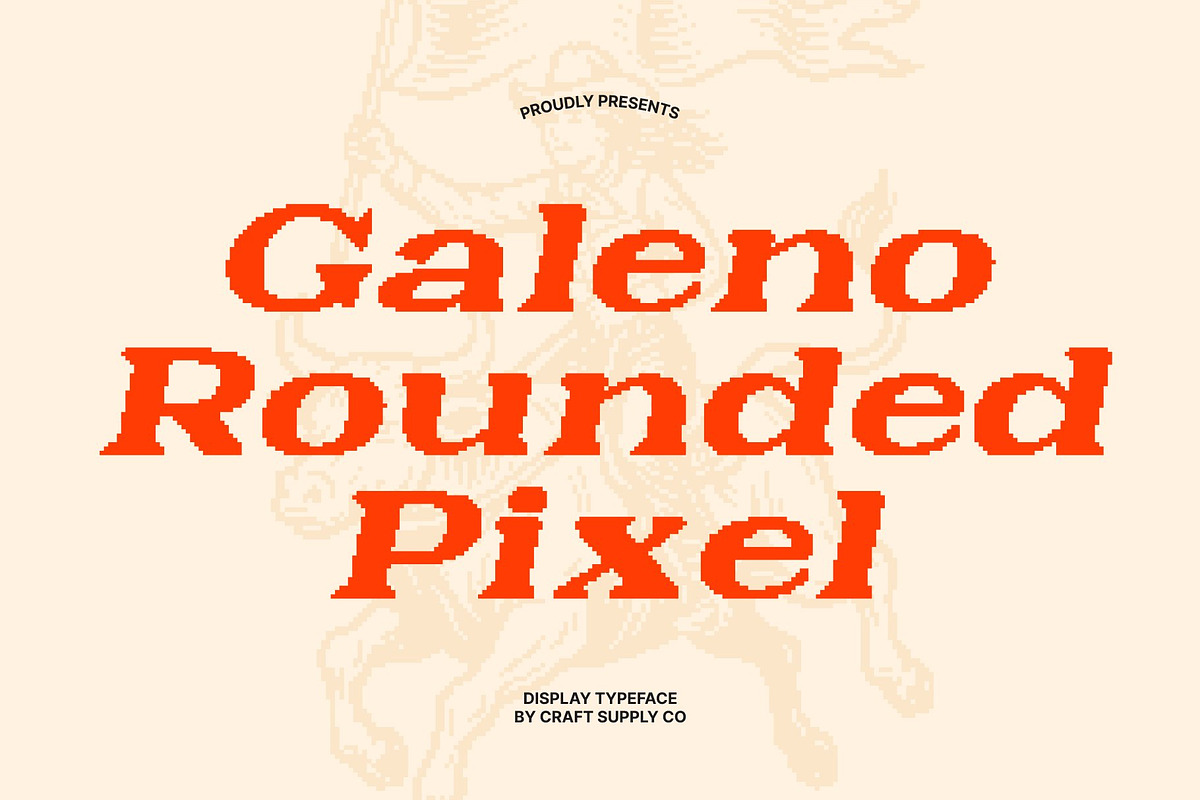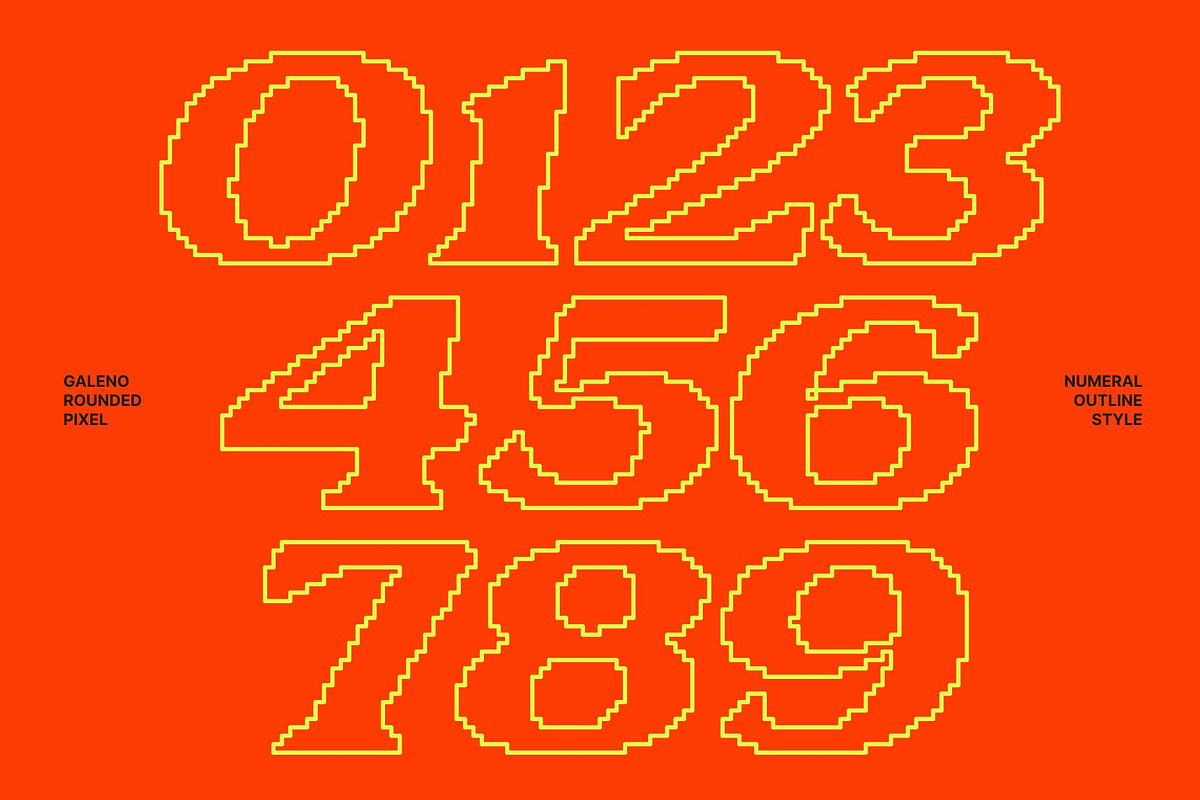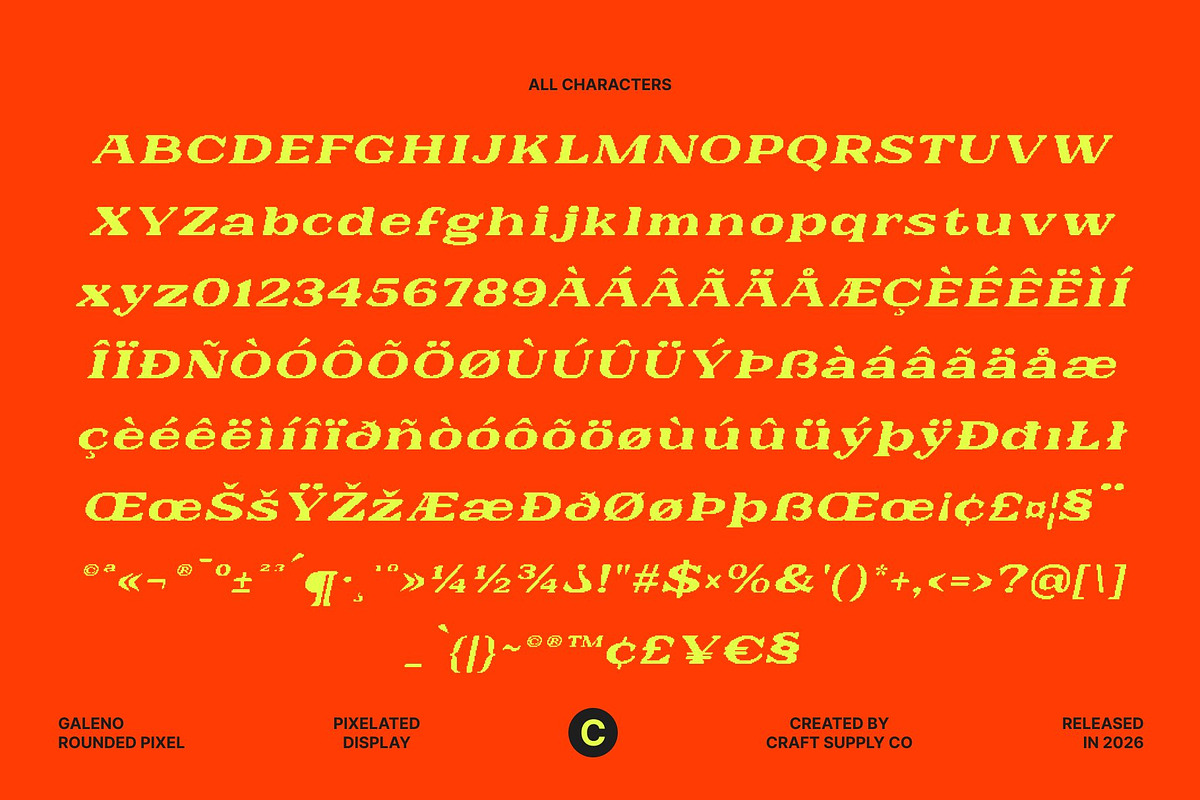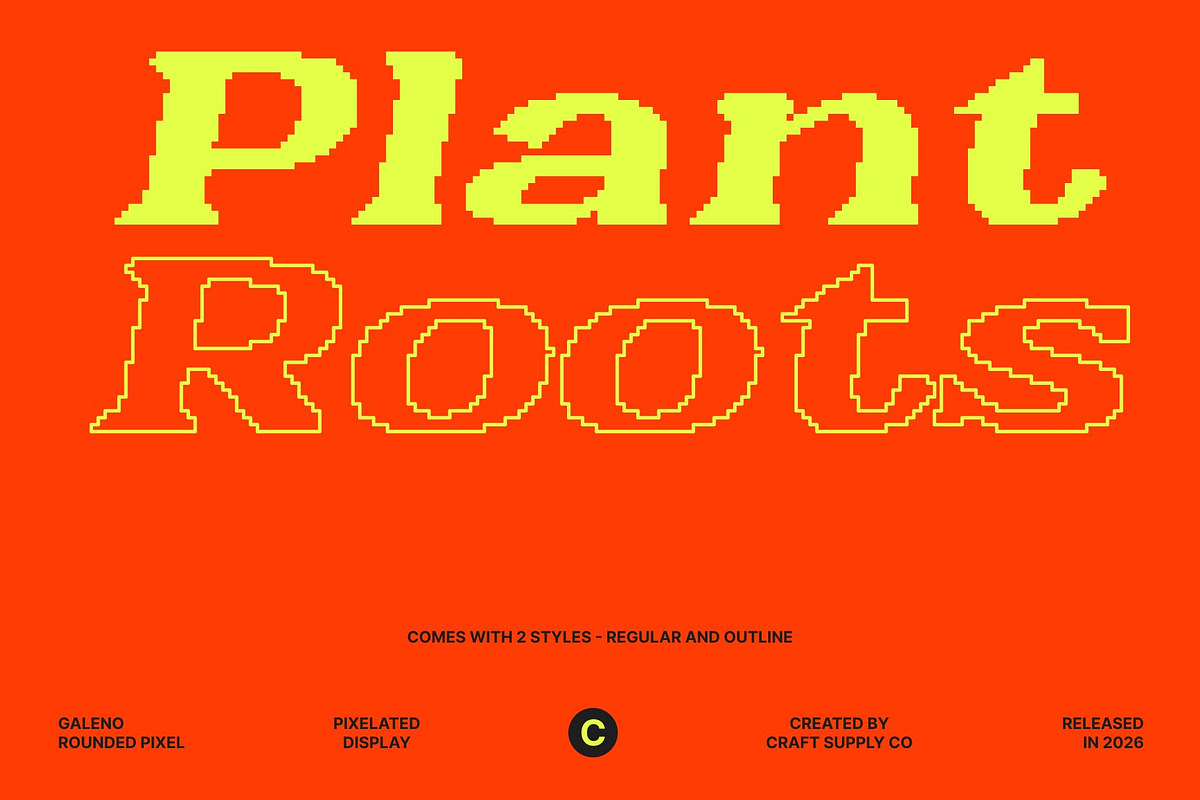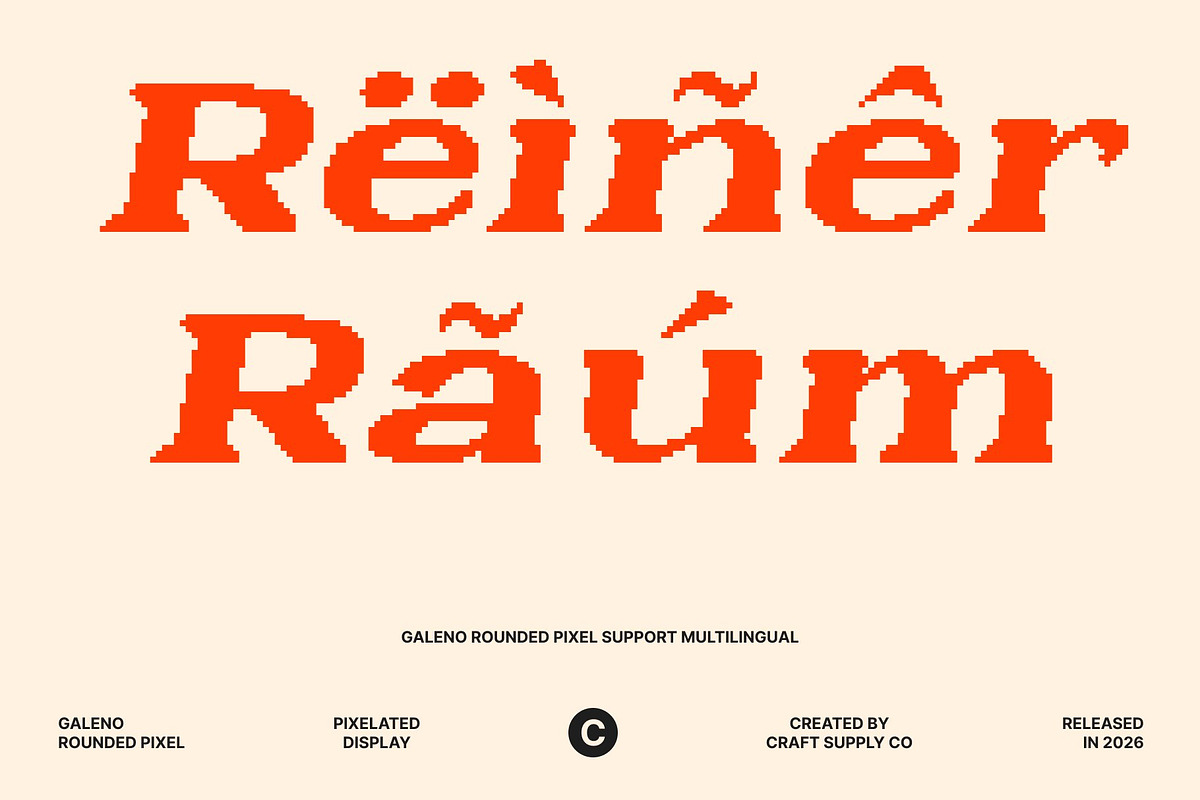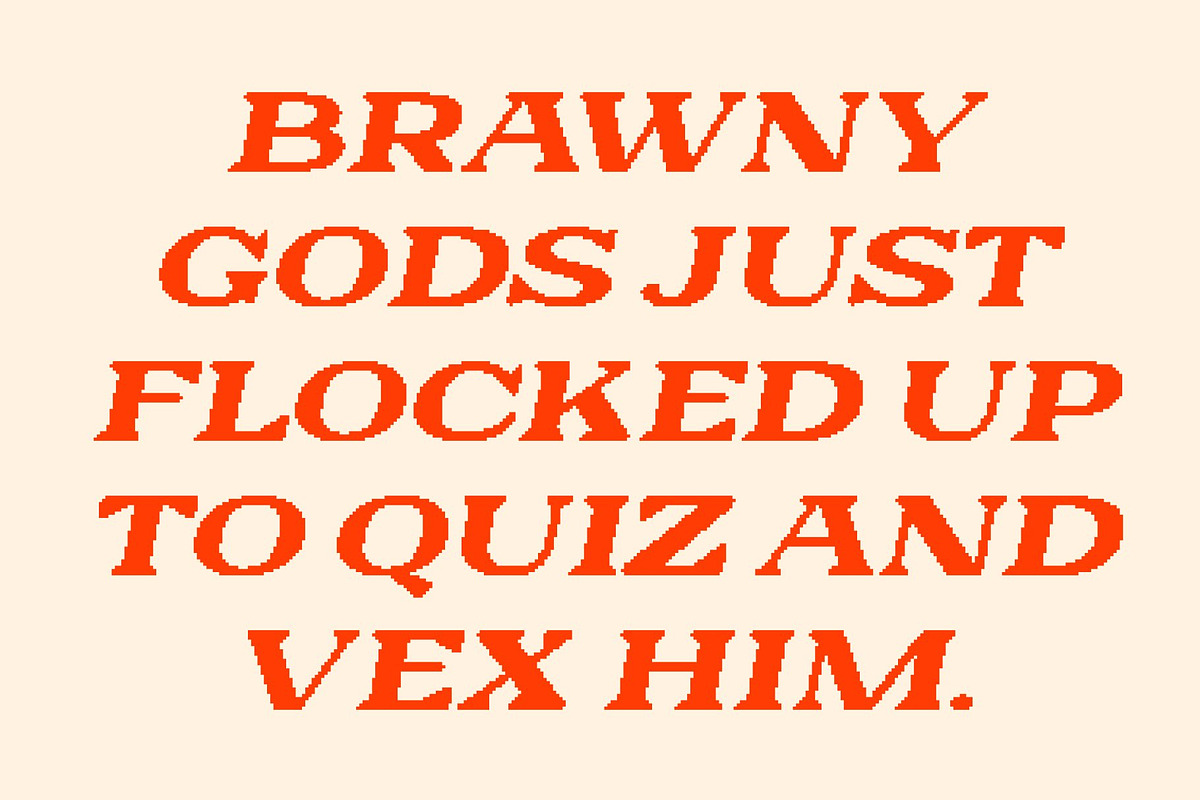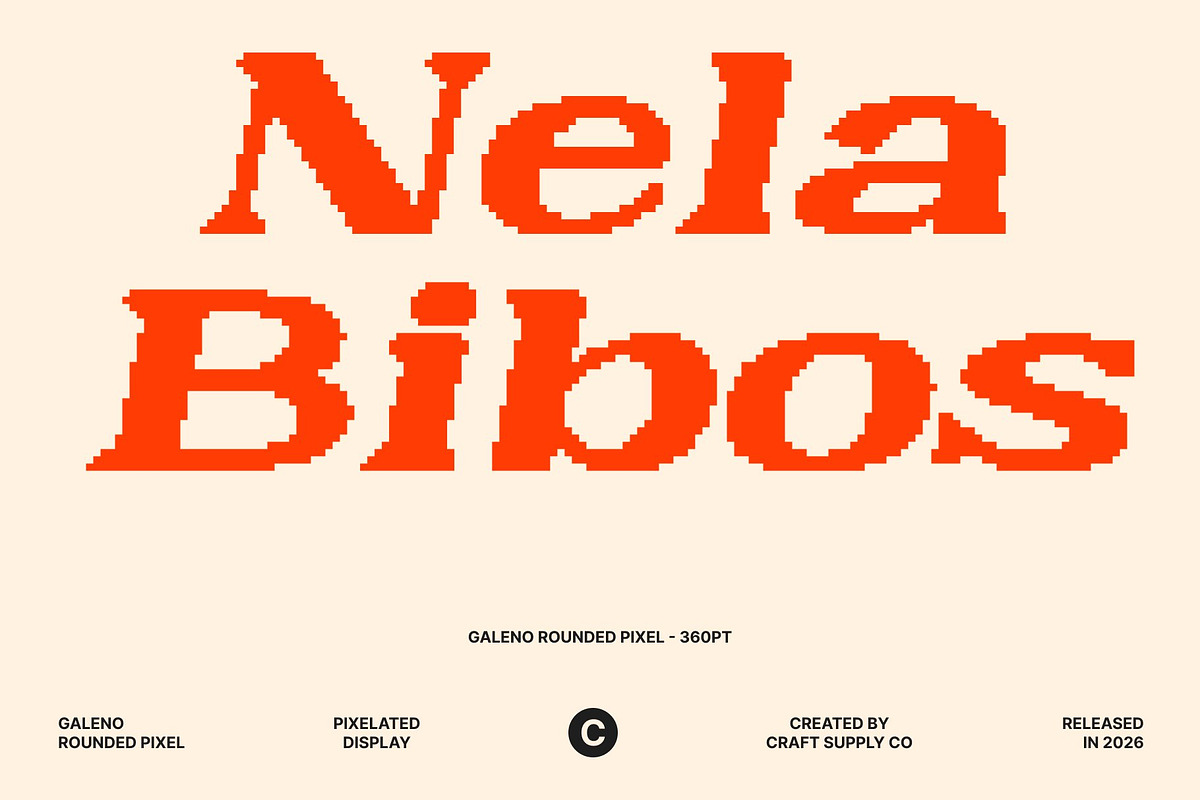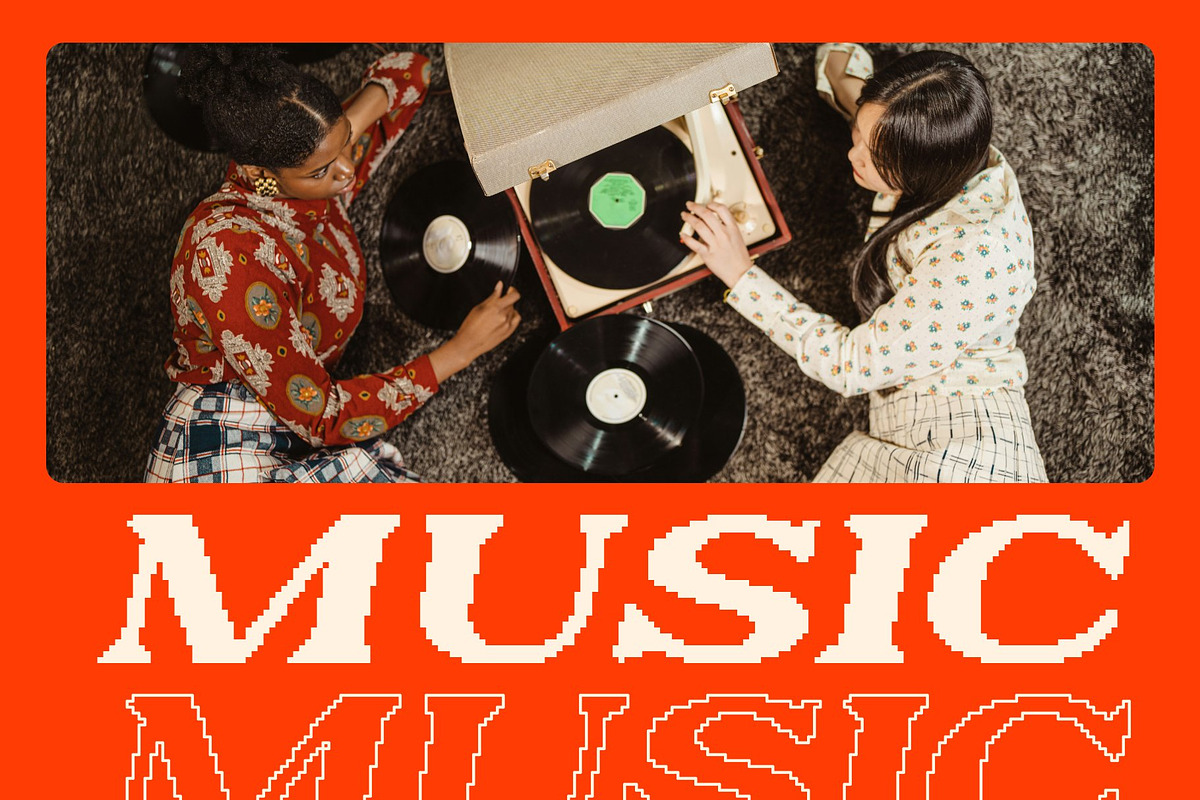
Galeno Rounded Pixel
Galeno Rounded Pixel – The Essence of Elegance
Soft and Elegant Design This is a wide serif typeface that blends gentle elegance with a distinctive pixelated structure. Its softly rounded edges and smooth contours create a graceful appearance, while the pixel-based construction introduces a subtle digital character that feels both modern and nostalgic.
Wide Serif with a Modern Interpretation Featuring a wide serif form and rounded terminals, this font offers a contemporary reinterpretation of classic serif typography. The combination of generous proportions and softened details results in a refined yet approachable aesthetic, perfect for modern design sensibilities.
Versatile Across Media Designed for versatility, this font performs beautifully in both print and digital applications. From editorial layouts and branding materials to web visuals and packaging, its balanced design ensures clarity, warmth, and visual appeal across different formats.
Elevated Visual Aesthetics With its wide, gentle serif structure and pixel-art influence, this font enhances any layout with sophistication and refinement. Whether used for headlines, display text, or branding, it adds a polished, elegant touch while maintaining a modern digital edge making it an excellent choice for designers seeking timeless elegance with contemporary pixel charm.
Galeno Rounded Pixel Regular
Galeno Rounded Pixel Outline